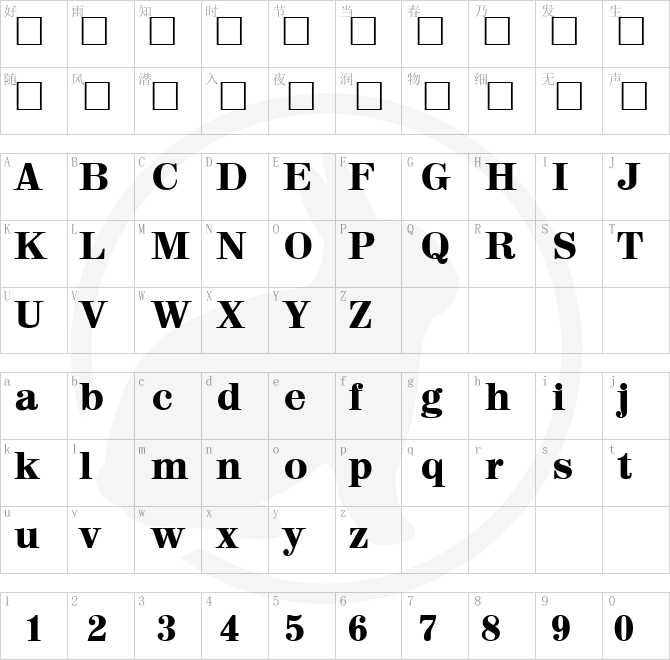
Valencia-ExtraBold.ttf is a very beautiful artistic font, Valencia-ExtraBold.ttf is widely used in the design and printing of various books and pictures,Valencia-ExtraBold.ttf has a strong visual impact,Valencia-ExtraBold.ttf is a commonly used font in newspapers, magazines and books, and is used in posters, e-commerce Poster design, store design, logo design, font design and other fields.Valencia-ExtraBold.